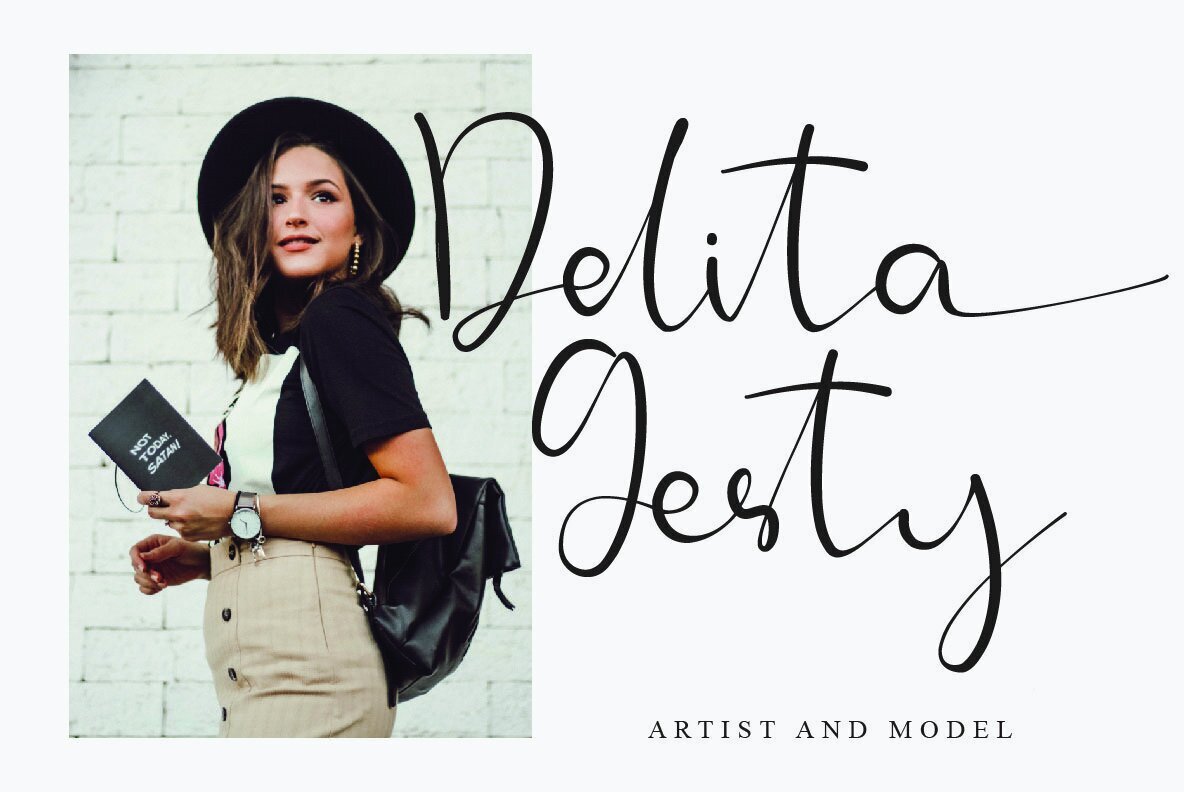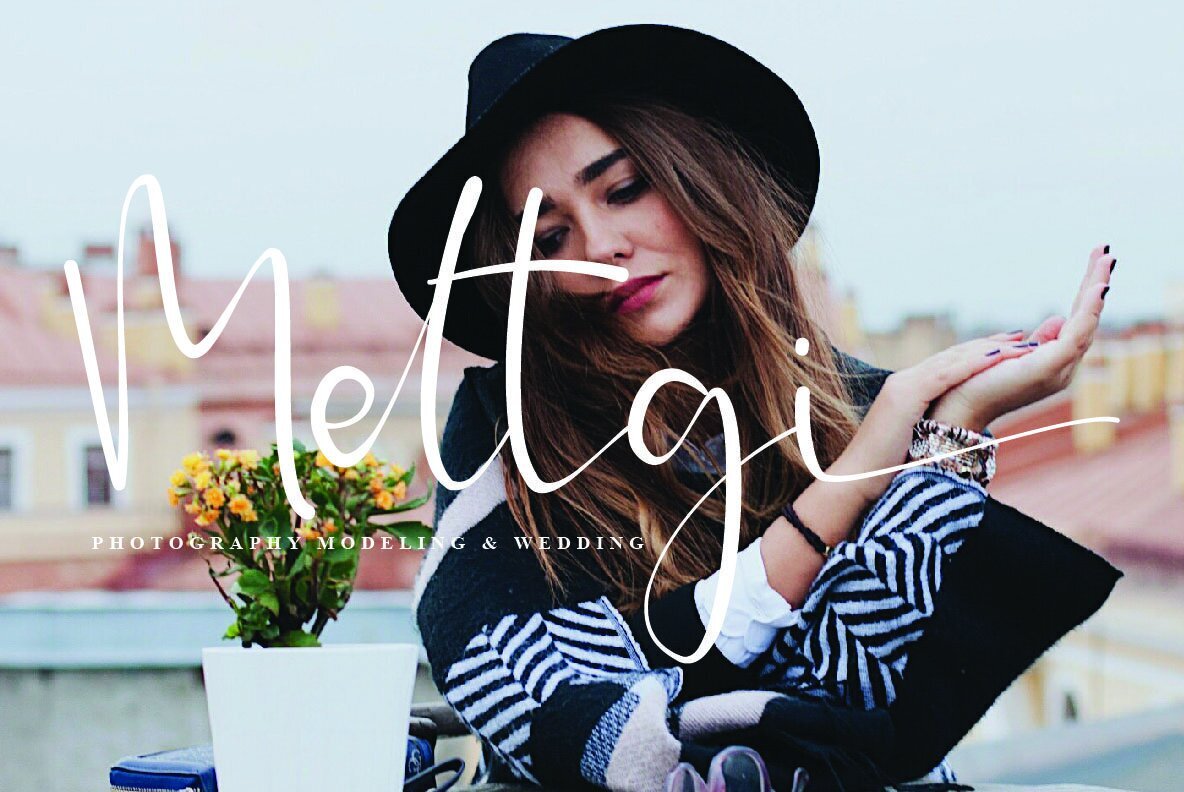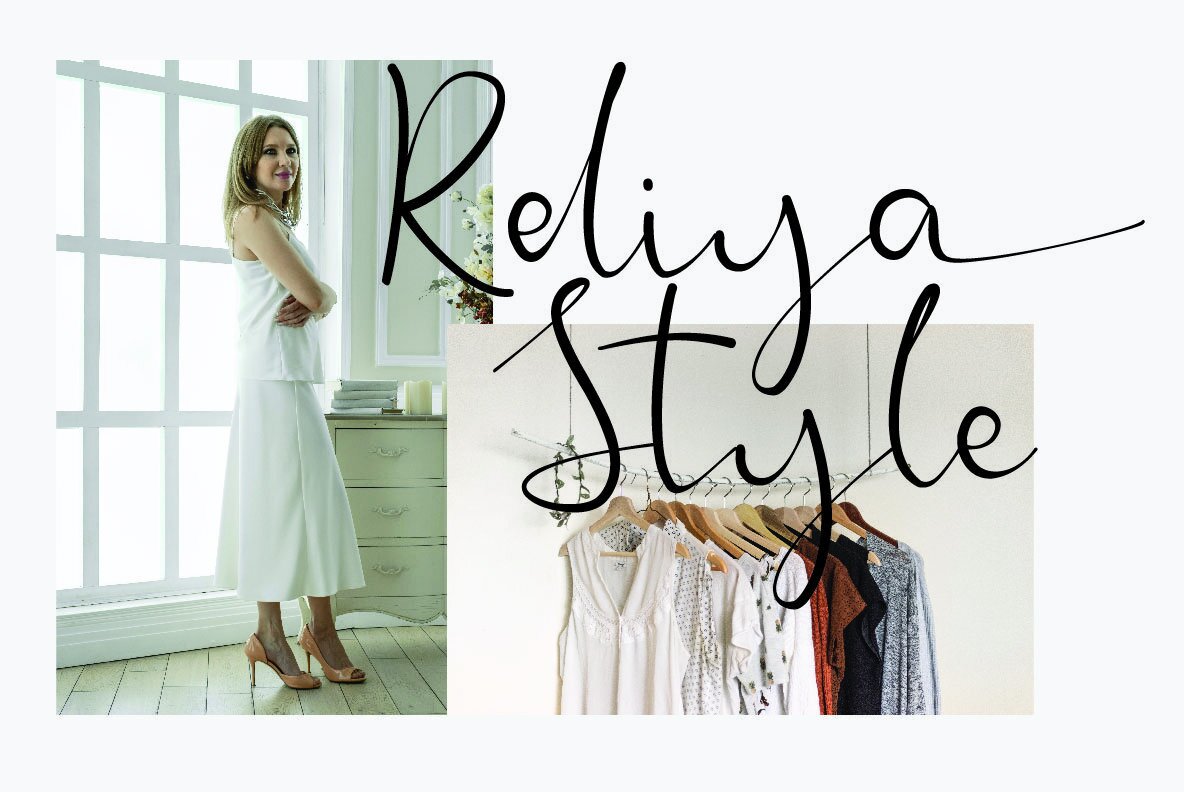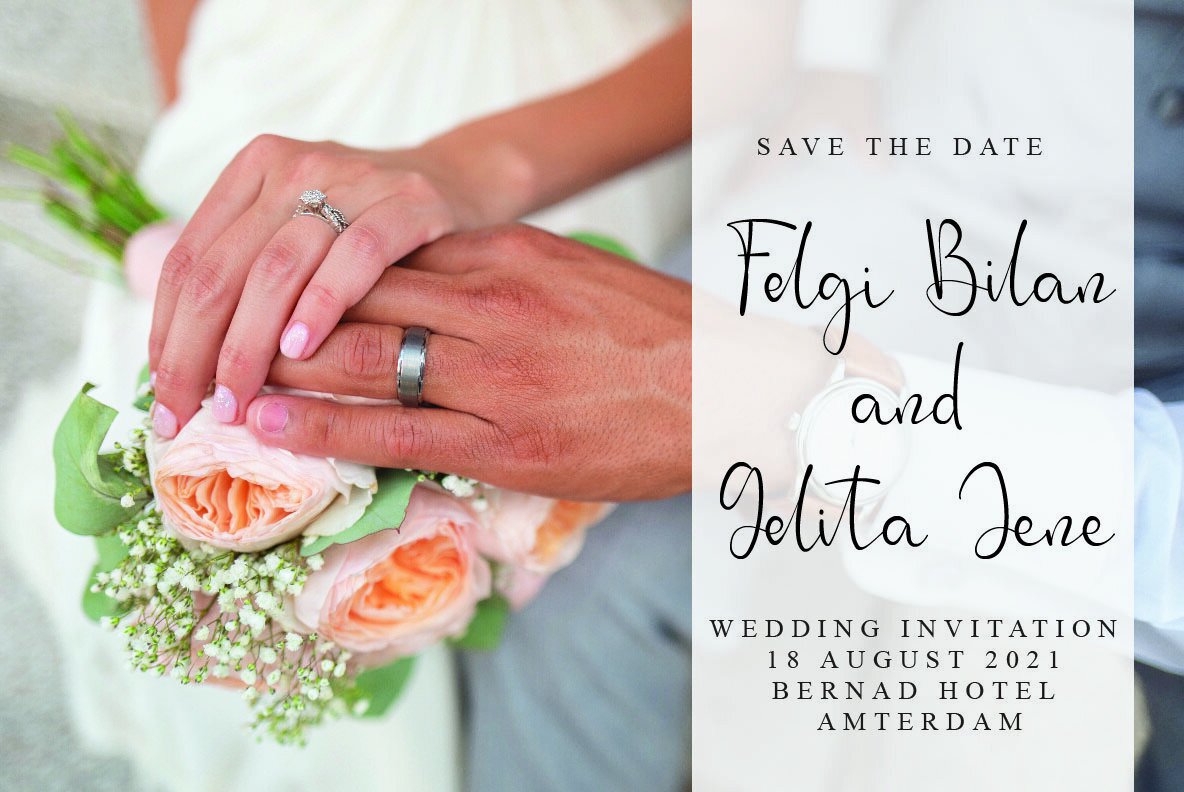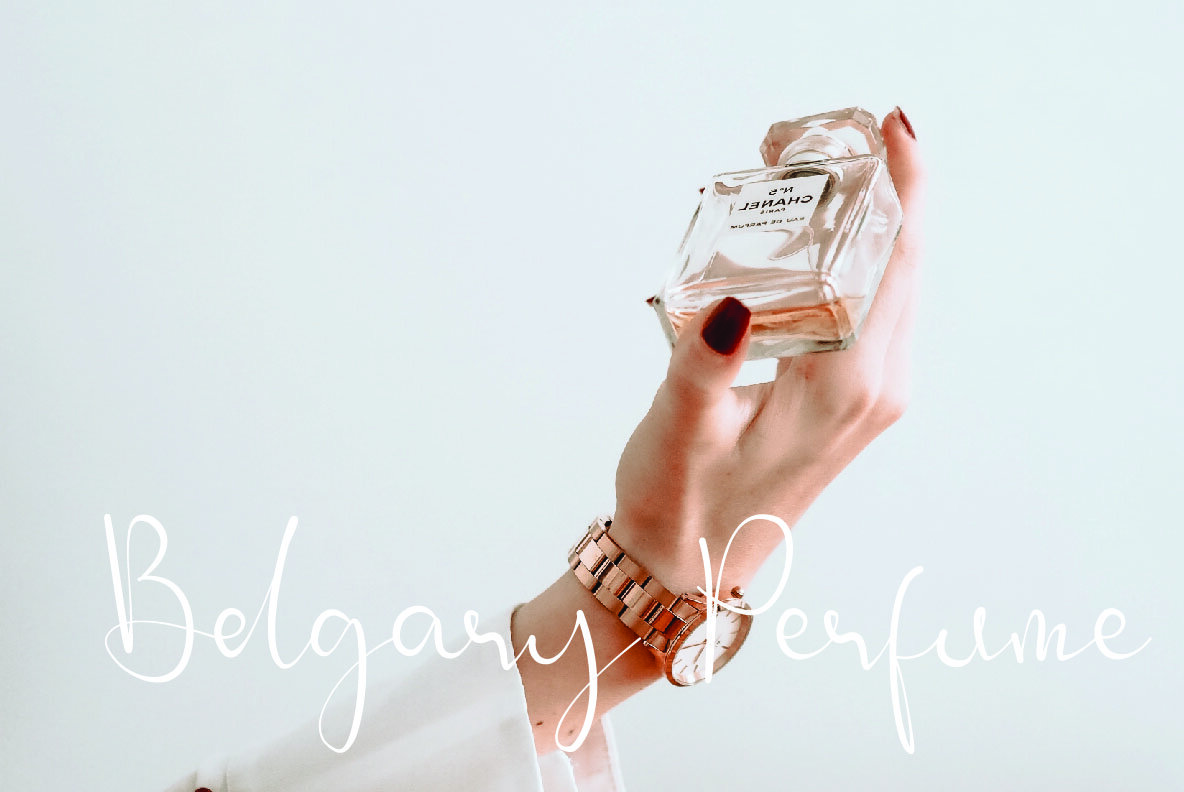
Anilley Melia is a modern handwritten font that is suitable for branding, signature, wedding invitation, promotion, product packaging, and other needs. This font is modern, simple, but still authentic. You will get full set of lowercase and uppercase letters, numerals and punctuation, multilingual symbols, lowercase beginning and ending swashes, ligatures and extra swashes.
- Stalistic arlternet 1,dan 2